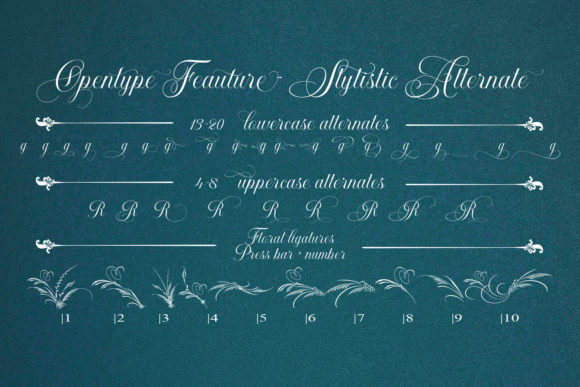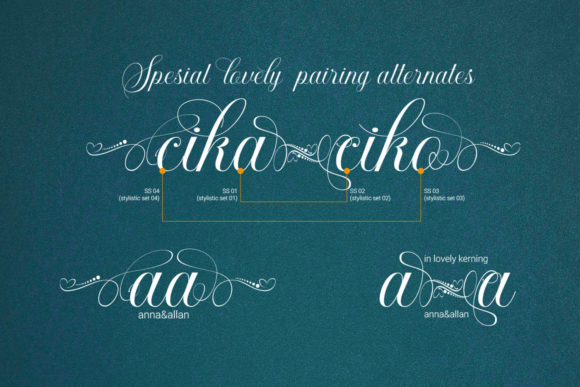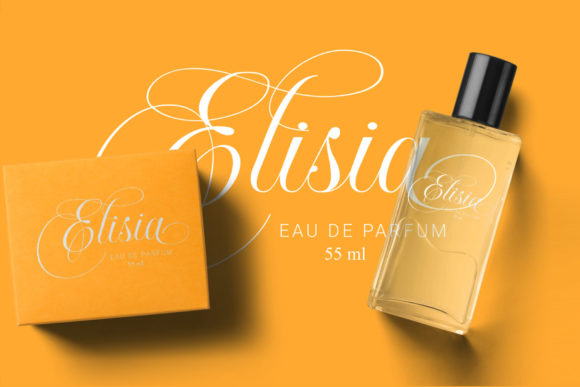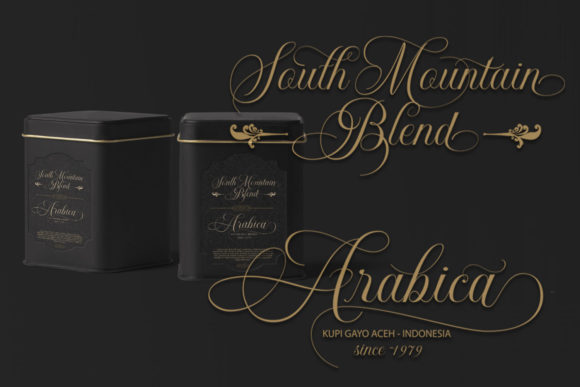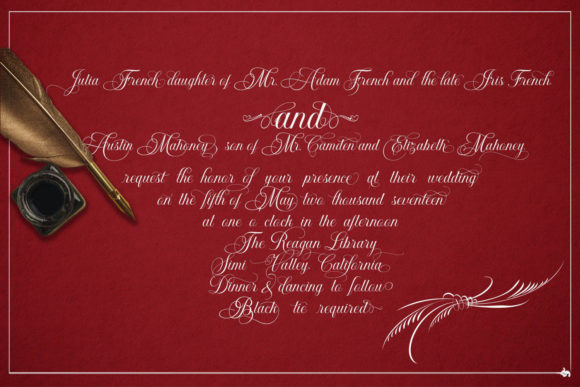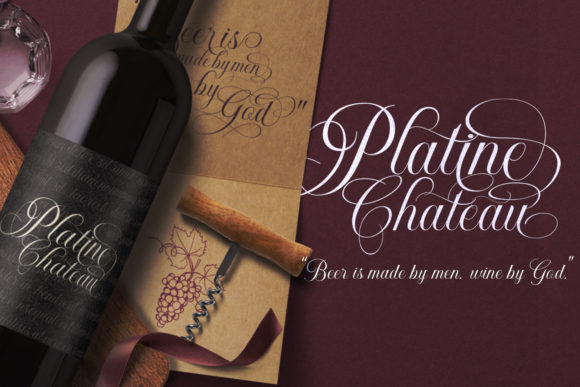
Introduction to Khatija Font
Have you ever found yourself staring at a blank canvas, trying to bring a design idea to life? The creative process can be a thrilling and daunting experience, full of endless possibilities and uncertainty. But what if you had the perfect tool to give your project that extra oomph? Enter the Khatija Font, a stunning calligraphy font that’s sure to elevate any design.
This high-quality font boasts a bold, modern look that’s impossible to ignore. With its eclectic feel, Khatija Font adds a unique touch to any design idea, making it a valuable resource for designers looking to create something truly special. Whether you’re working on a personal project or collaborating with a team, this font is sure to be a game-changer.
Key Features of Khatija Font
• High-quality font with a transparent background, ideal for creative projects that require a clean and minimalist design.
• Designed to be highly legible and versatile, suitable for a wide range of applications, from digital displays to print materials.
• Comes in multiple weights and styles, allowing users to customize their design to suit their creative vision.
• Supports high-resolution displays, making it perfect for use in high-quality digital products, such as graphics, logos, and branding materials.
• Part of a larger font family, offering a cohesive and consistent design language for designers working on complex creative projects.
Honest Review: Khatija Font
I recently stumbled upon the Khatija Font, and I must say it’s been a valuable addition to my design resources. The high quality and intricate details of this font caught my attention immediately.
• ✨ The unique, hand-drawn style of the font adds a touch of elegance to any creative project.
• ⚠️ The font may not be suitable for large-scale text, as the intricacies can get lost at bigger sizes.
• ⚠️ The font family is relatively small, so you may not find a perfect match for all your design needs.
Overall, I’m impressed with the Khatija Font. Its unique style and free availability make it a great design resource. While it may have some limitations, I believe it’s a valuable addition to any designer’s toolkit.
The Khatija Font is a high-quality, free design resource perfect for creative projects. Its unique style and transparent background make it a great addition to any design.
Tips for Getting the Most Out of Khatija Font
To get the most out of the Khatija Font, try using it in combination with other design elements, such as graphics and images. Experiment with different font sizes and styles to create a unique look.
The Khatija Font is perfect for a variety of design projects, including:
• Wedding invitations
• Business cards
• Posters and flyers
• Brochures and catalogs